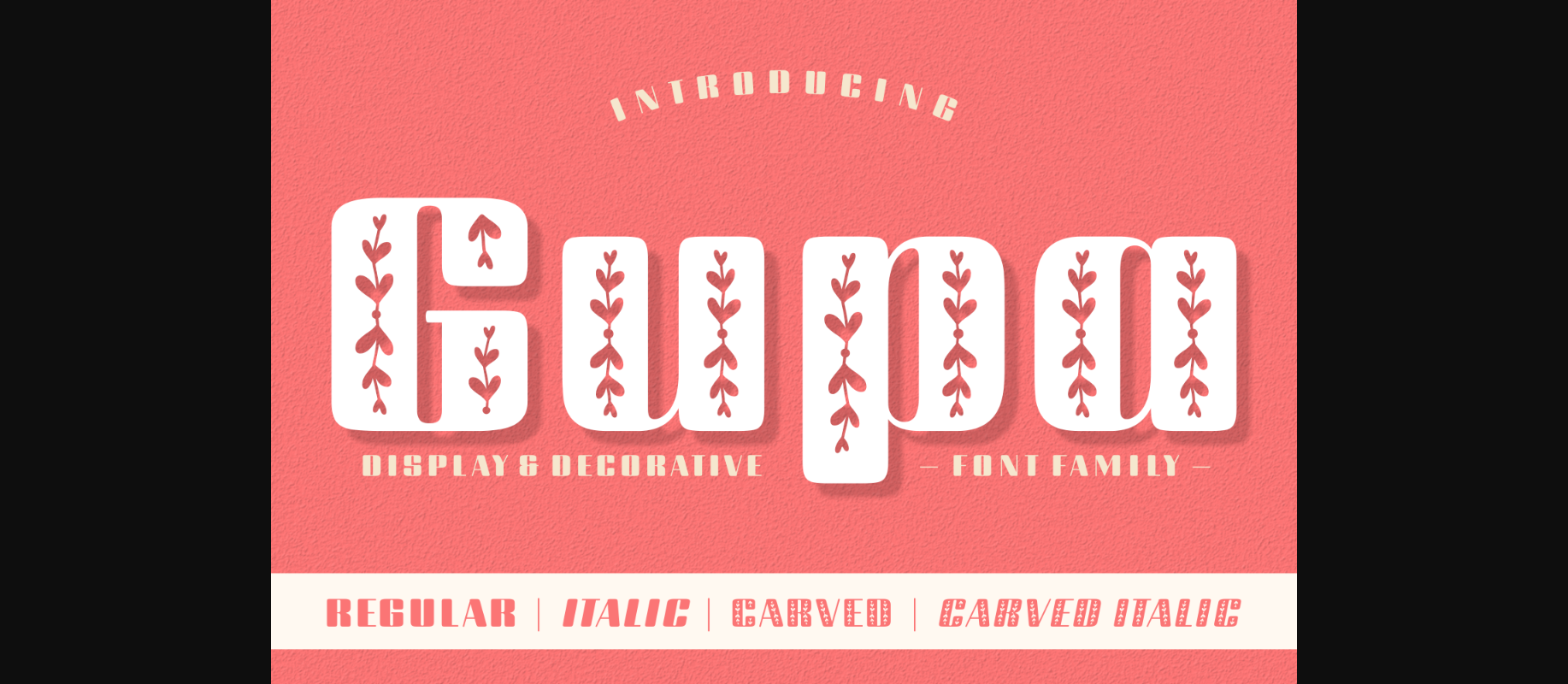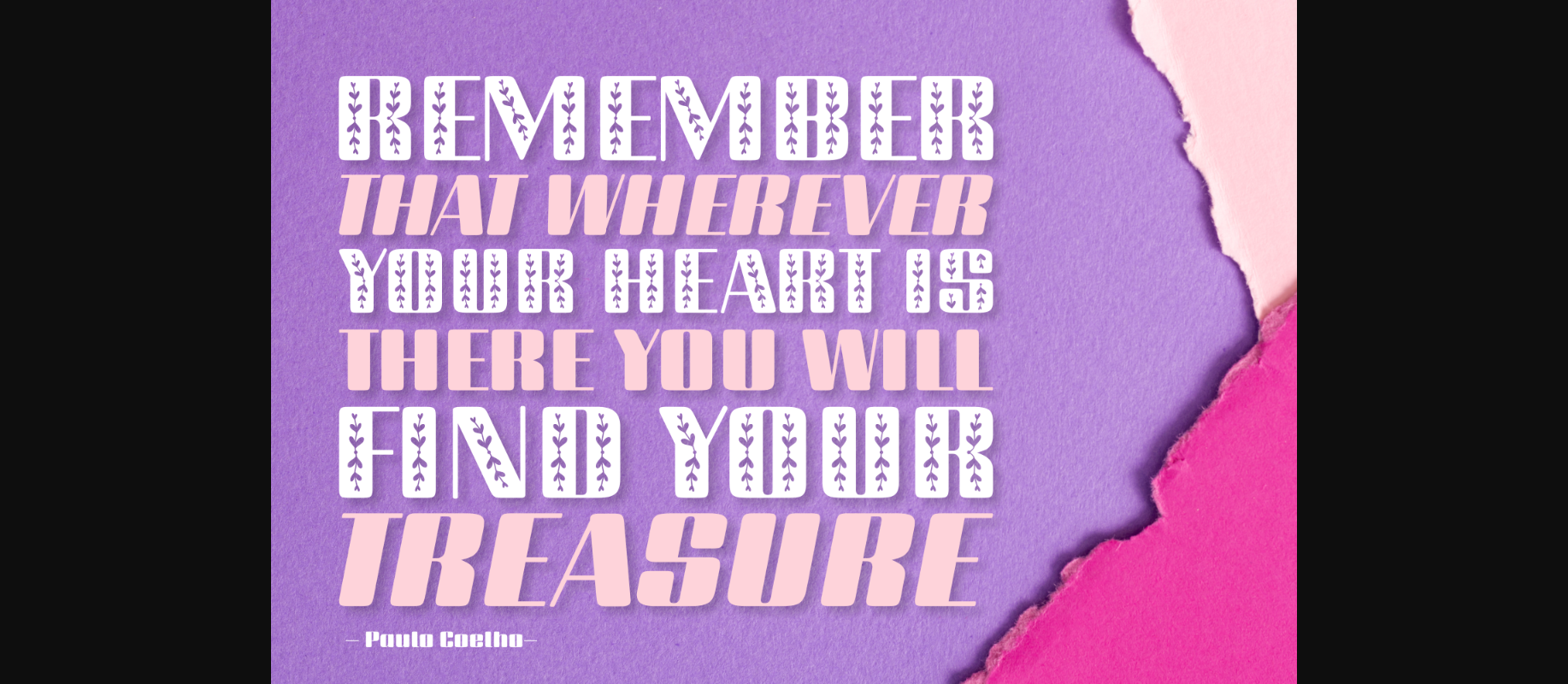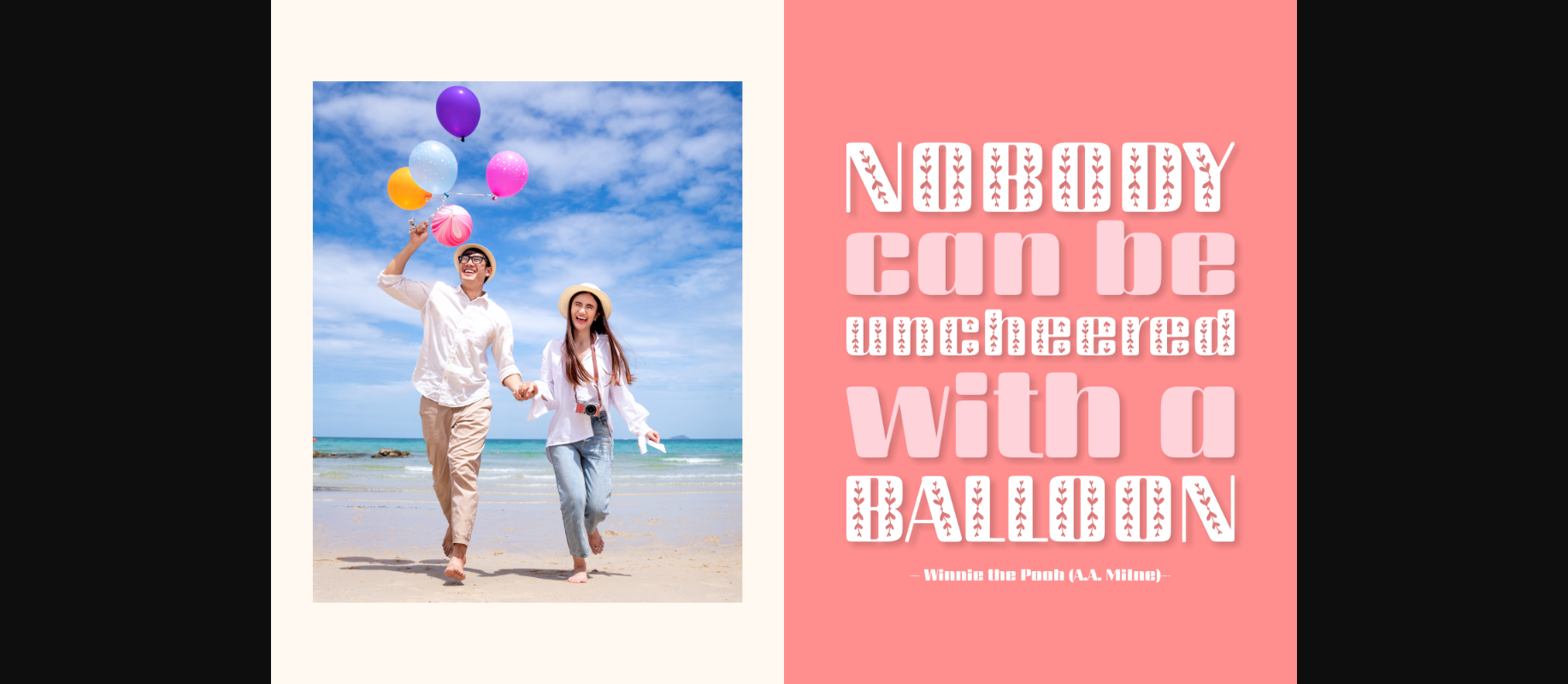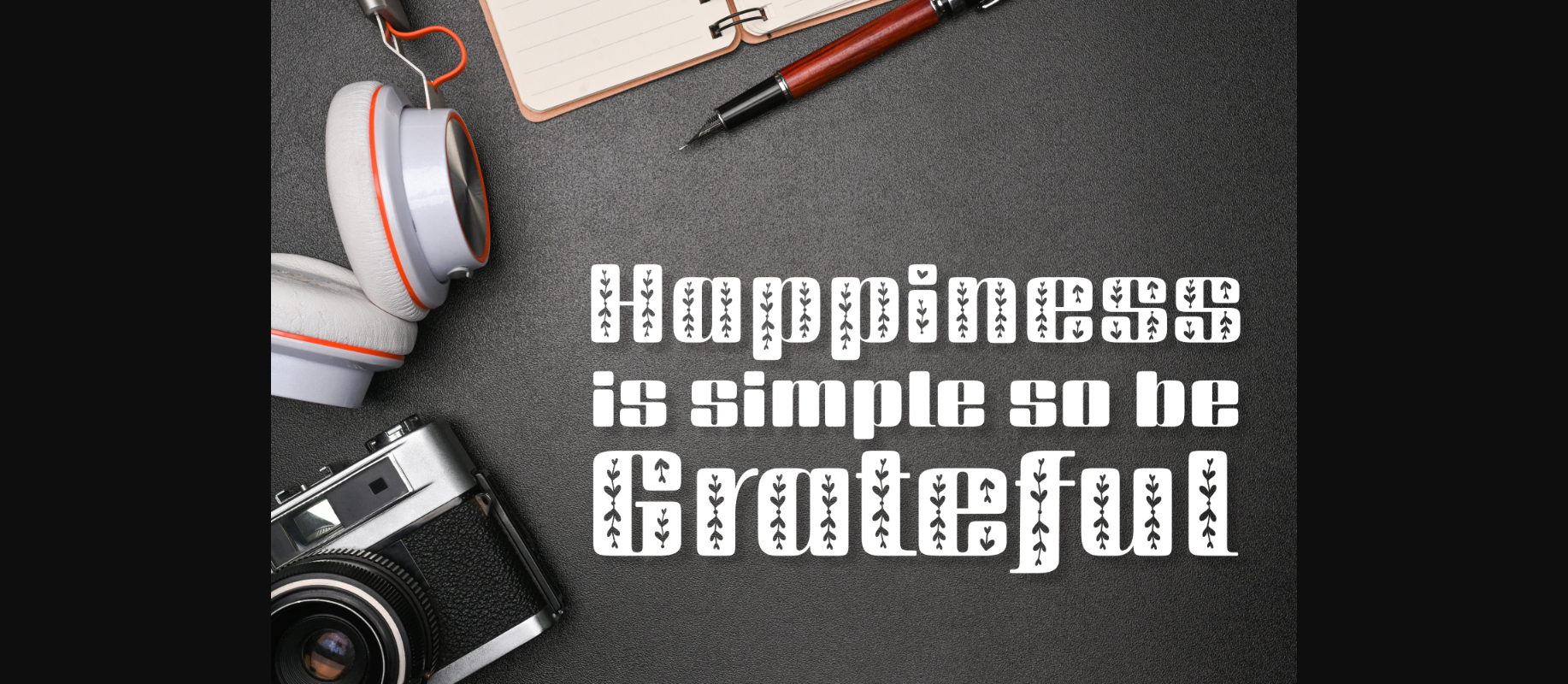
Gupa Font
About Gupa Font
Gupa is a cool and uniquely designed decorative font. It features sweet little flowers on each character and it will easily turn your designs into pure works of art.